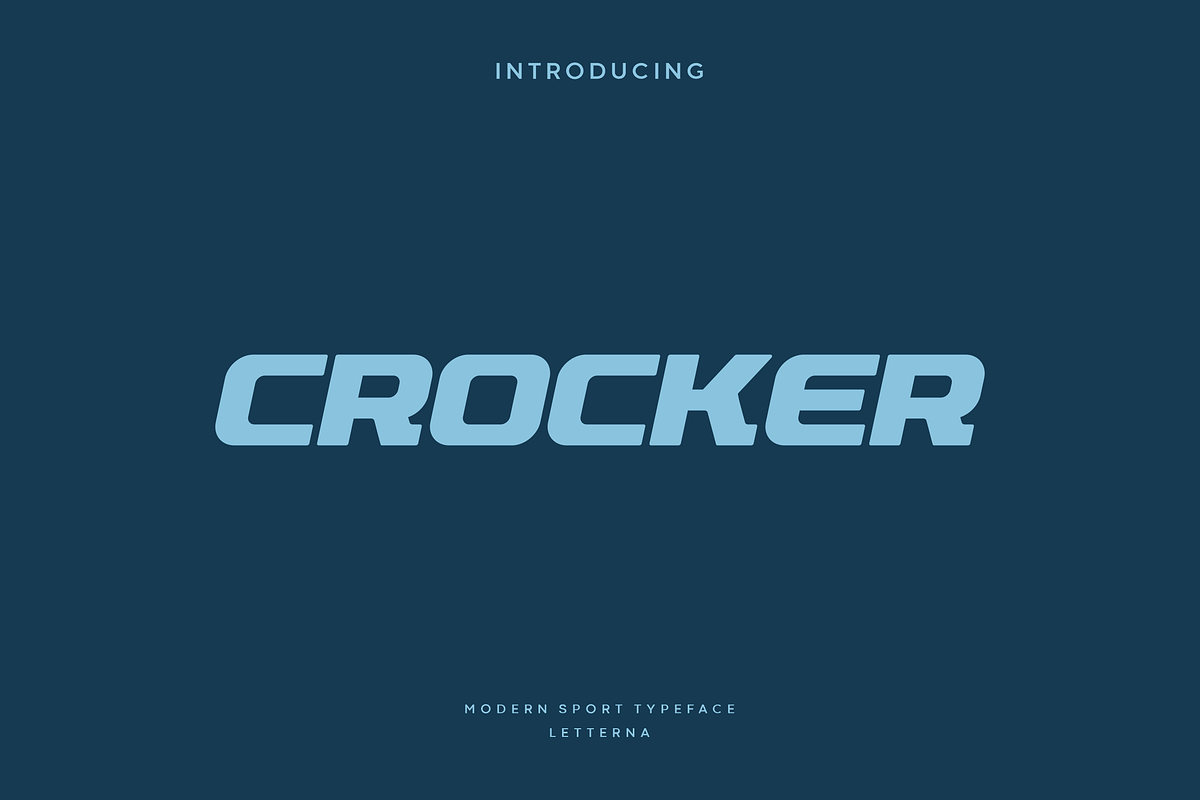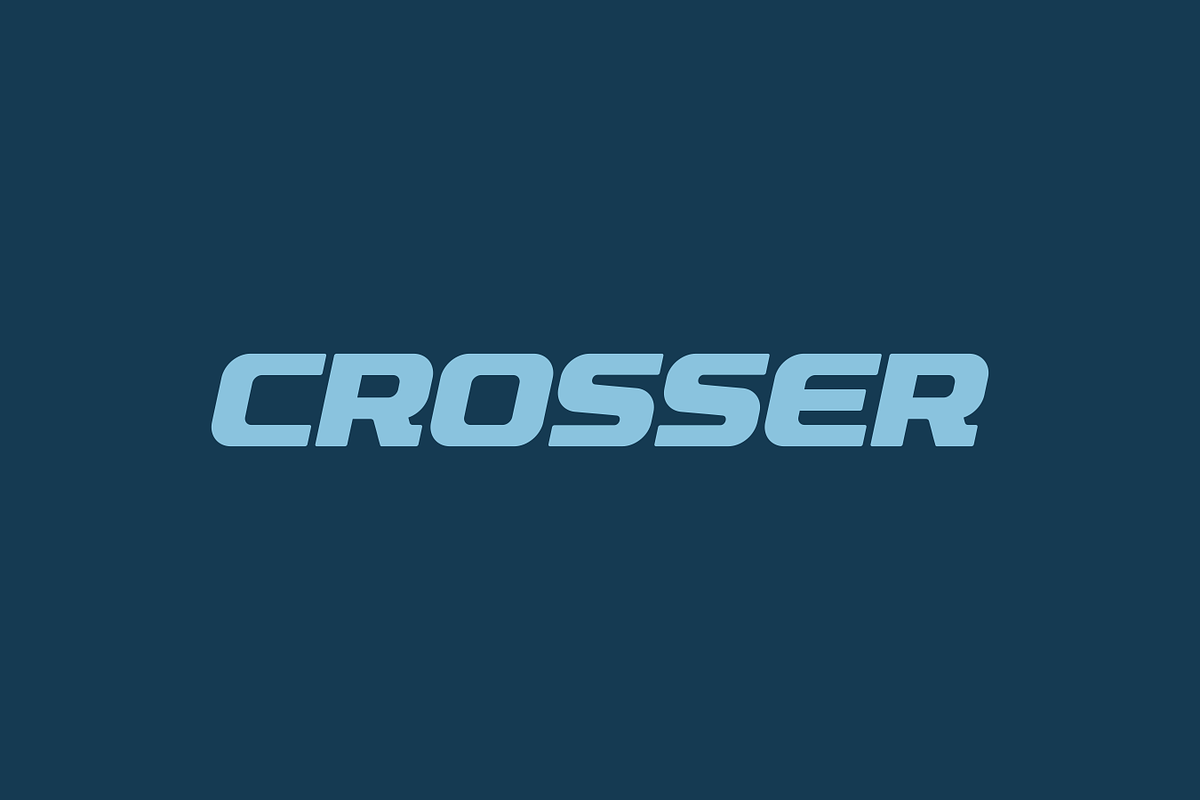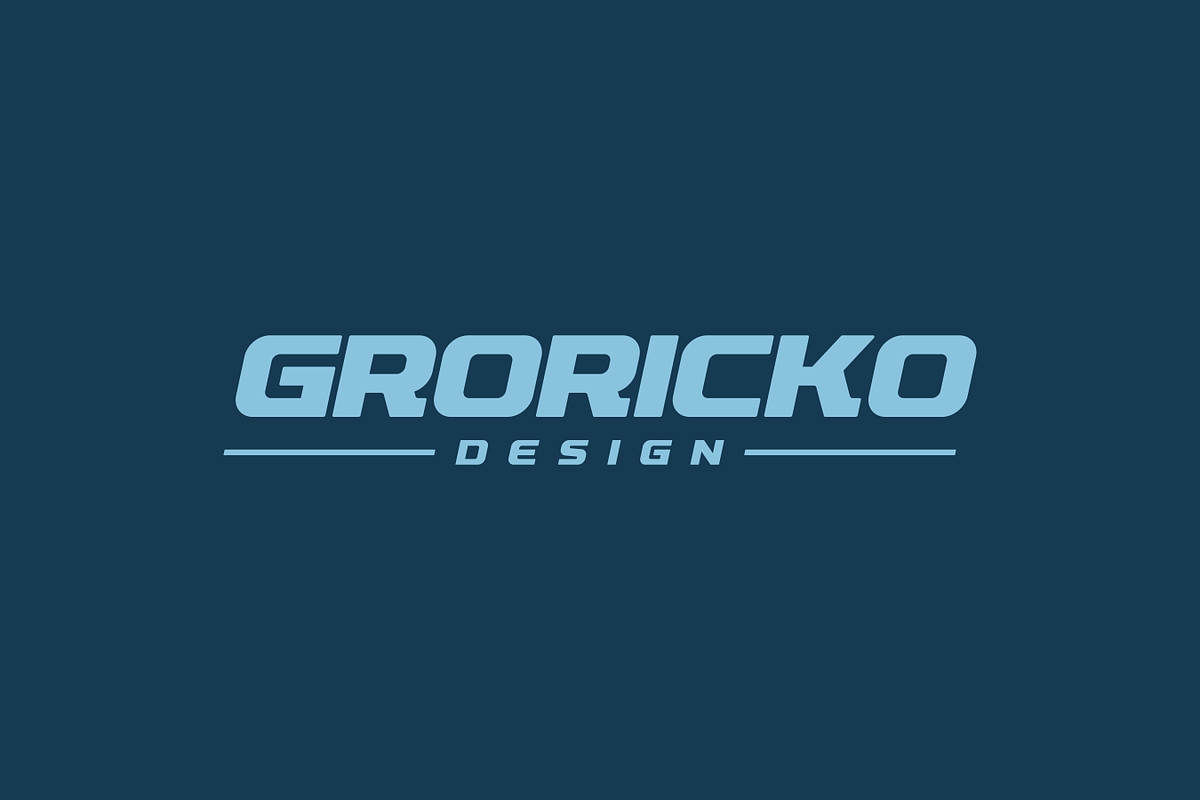
Crocker - Modern Sport Typeface
Crocker is a modern display font created specifically for sports branding with a sophisticated look, this font comes with a new and fresh all-caps style, which will make your design more memorable and timeless. Crocker font is perfect for sport branding, technology, headline, logo, poster, magazine and future projects. This font is made for bold action style and modern feel, so enjoy creating any project that will showcase your main ideas.